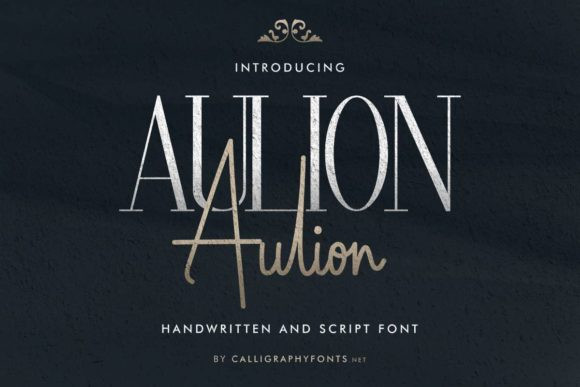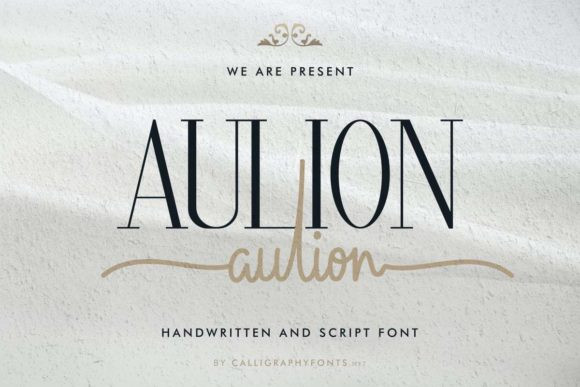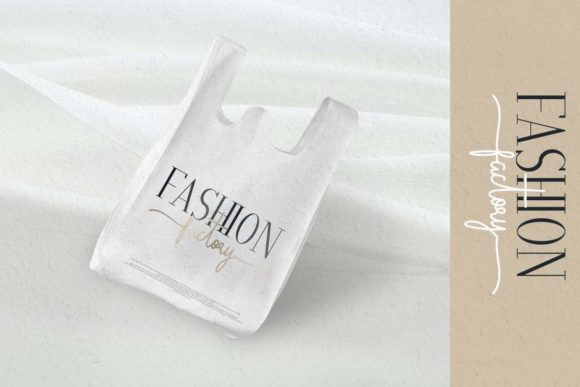
Aulion Font Duo
Aulion is a beautiful and glamorous duo font (serif and handwritten). Incredibly versatile, this font fits a wide pool of designs, elevating them to the highest levels. Add this elegant font to your favorite creative ideas and notice how it makes them come alive!